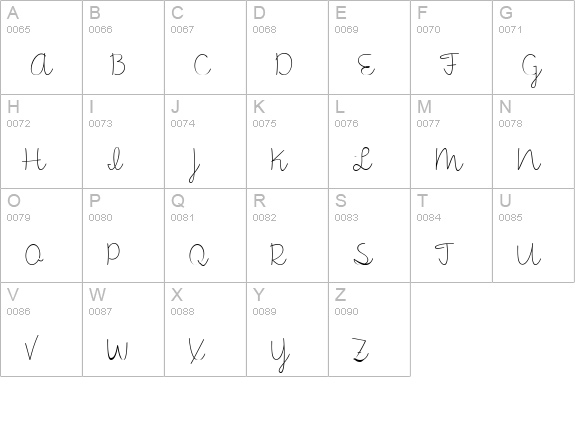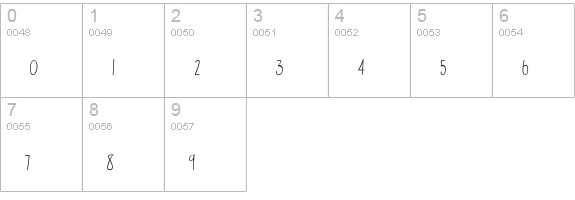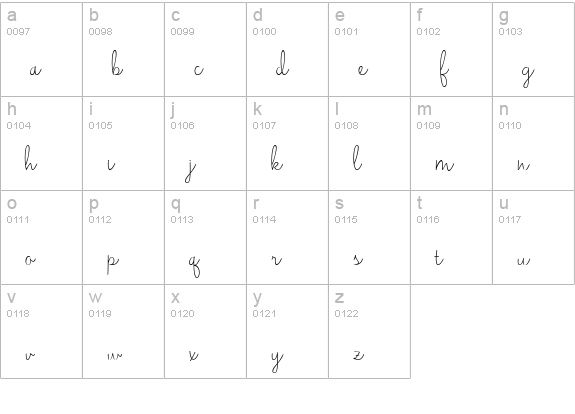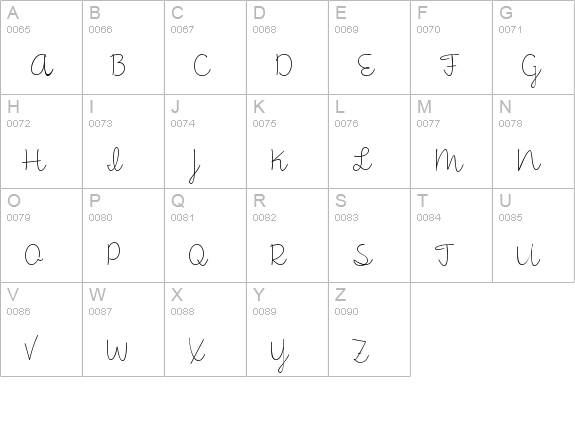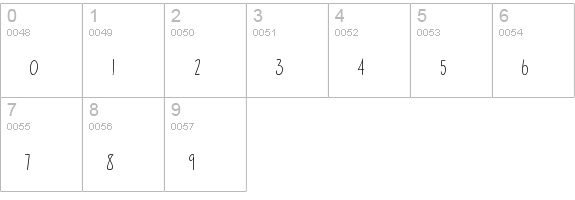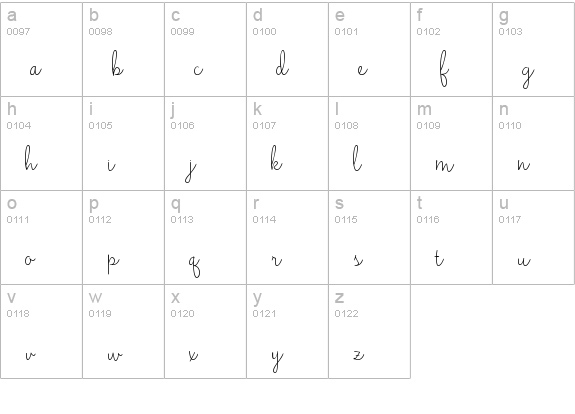
Jasmine Reminiscentse Light Font Details
Jasmine Reminiscentse Light is a refined, elegant variant in the Jasmine typeface family \xE2\x80\x94 well suited to elegant body text, refined sub-headings, and luxury branding.
Jasmine Reminiscentse Light font is a stunning and elegant typeface that exudes a sense of nostalgia and grace. It is the perfect choice for projects that require a touch of sophistication and a hint of vintage charm. The delicate and flowing letterforms of Jasmine Reminiscentse Light font effortlessly capture the essence of classic calligraphy, making it a truly timeless addition to any design. What makes Jasmine Reminiscentse Light font even more appealing is the fact that it is freely available to download at FontsMarket.com. This means that you can easily access and use this beautiful font without any cost. Whether you're a professional designer or a creative enthusiast, having access to high-quality fonts like Jasmine Reminiscentse Light font can greatly enhance your projects and help you achieve the desired aesthetic. With its generous x-height and graceful curves, Jasmine Reminiscentse Light font is highly legible and versatile. It can be used for a wide range of applications, including logos, branding, invitations, packaging, headlines, and more. Its timeless appeal and effortless elegance make it a reliable choice for any design project. The attention to detail in Jasmine Reminiscentse Light font is evident in every stroke and curve. Each character is meticulously crafted to ensure a harmonious and balanced appearance. The result is a font that not only looks beautiful but also conveys a sense of refined taste and sophistication. Whether you're working on a personal project or a client's design, Jasmine Reminiscentse Light font is sure to impress. Its free availability at FontsMarket.com makes it easily accessible for designers of all levels, allowing you to add a touch of elegance to your creations without breaking the bank. In conclusion, Jasmine Reminiscentse Light font is a stunning typeface that combines timeless elegance with effortless legibility. Its free availability at FontsMarket.com makes it a valuable resource for designers seeking high-quality fonts without any cost. Download Jasmine Reminiscentse Light font today and elevate your designs to new levels of sophistication and charm.